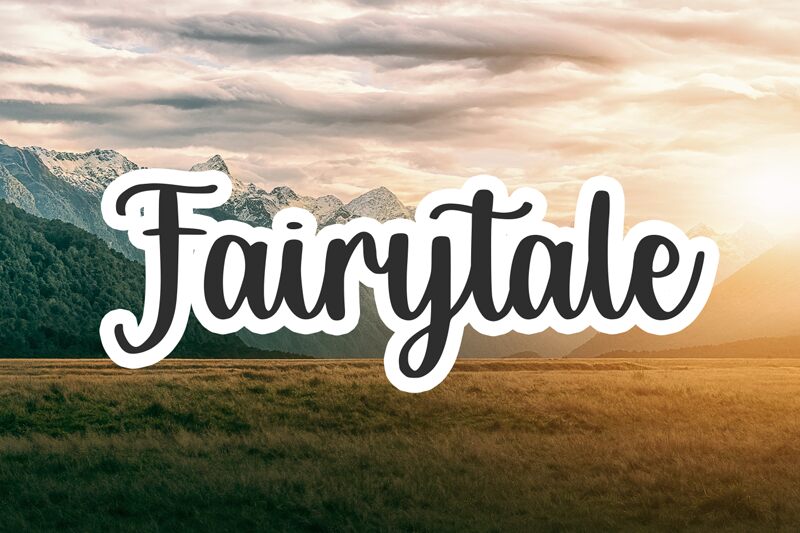
Bettermilk font is a handwritten typeface from Abo Daniel Studio, which brings an expressive, casual, and inviting mood. The modern script’s natural vibe stems from its swing-like strokes which give the text some lovely movement. Readers will surely enjoy starting at and reading fonts that use Bettermilk as reading is made extremely pleasant.
Bettermilk
Abo Daniel Studio